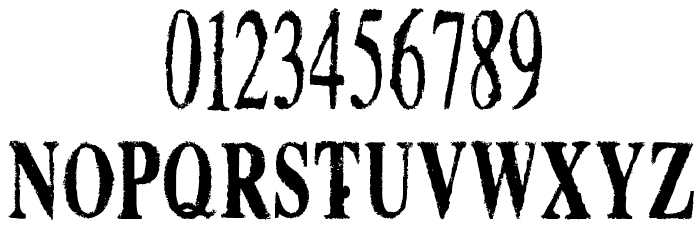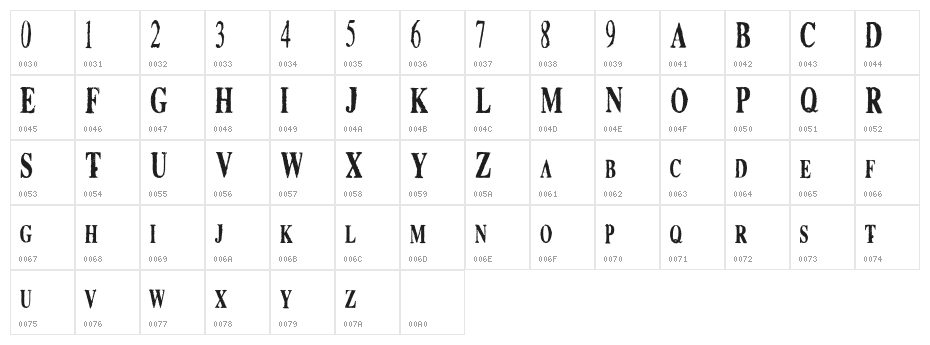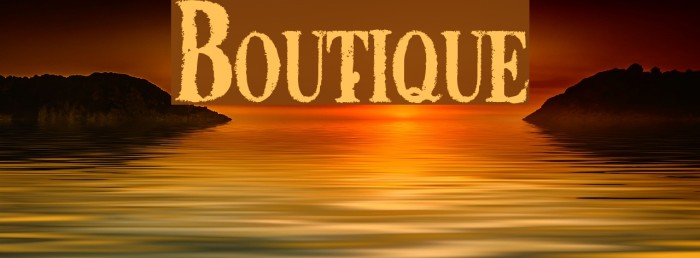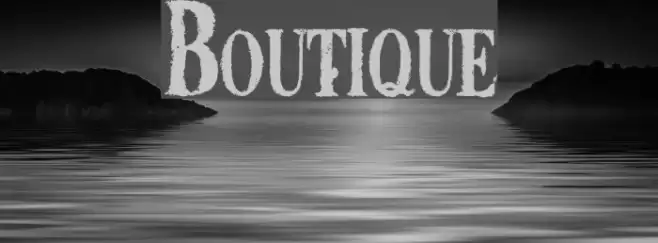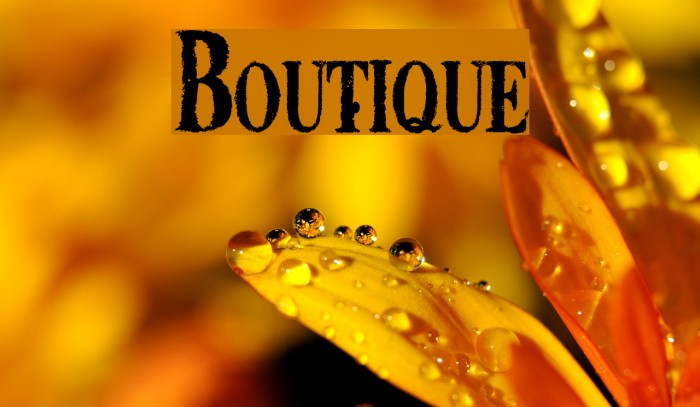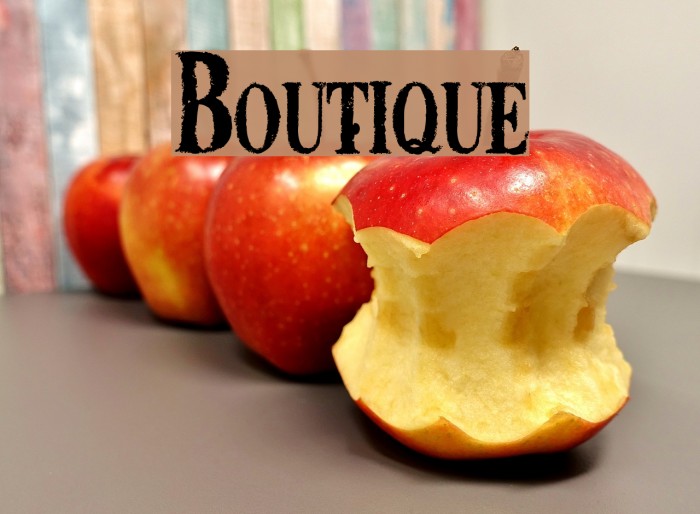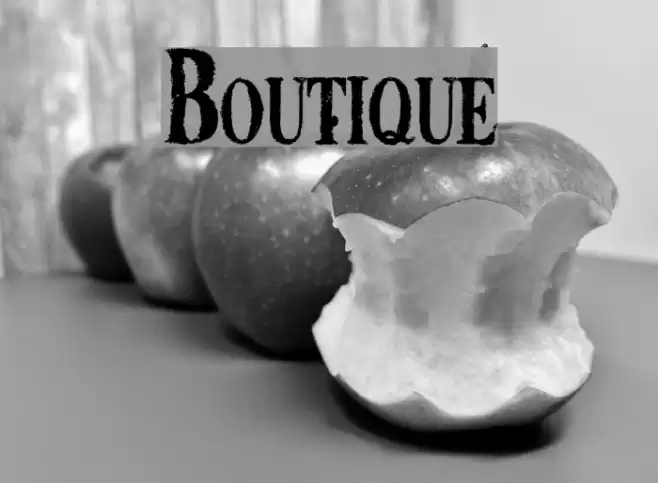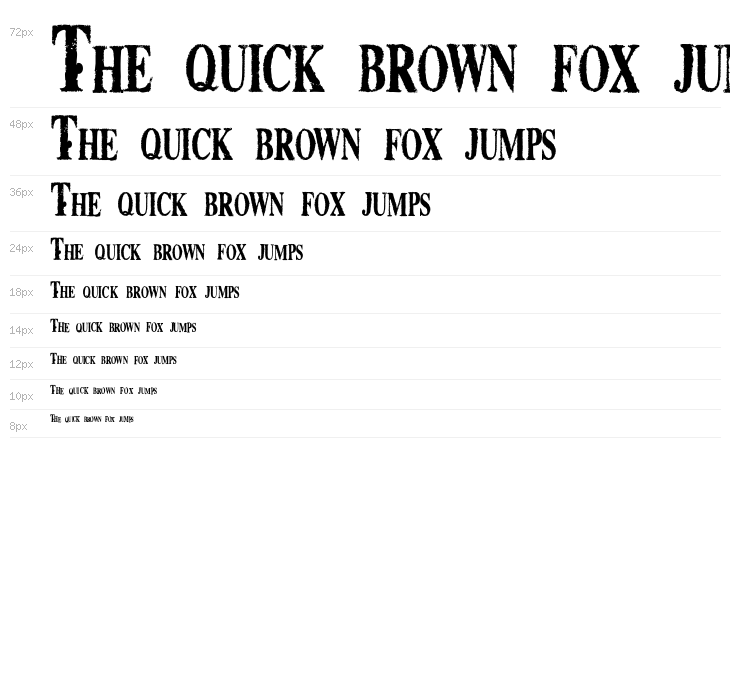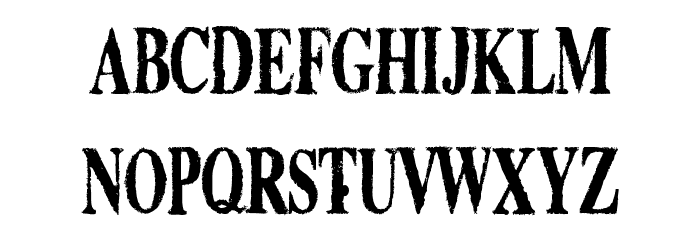
Boutique Font
Boutique Description
This font features a bold and textured appearance, reminiscent of vintage printing techniques. The uppercase letters are prominent and slightly distressed, giving them a rugged, handcrafted feel. The lowercase letters maintain the same textured style, providing a cohesive look throughout. Numbers and special characters are designed with the same attention to detail, ensuring consistency. The overall design is striking and eye-catching, making it suitable for projects that require a bold statement. The font's unique texture adds depth and character, making it ideal for creative and artistic applications.
| Proposed Projects | Ideal for branding, posters, album covers, and any project needing a bold, artistic touch. |